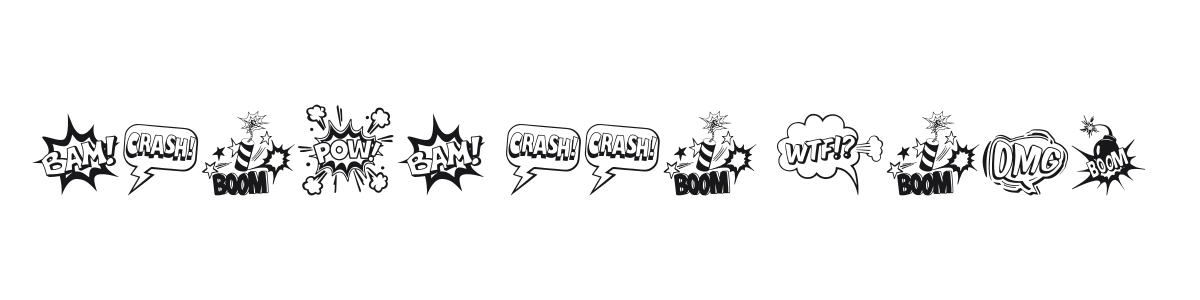
Comic Boom Elements
Comic Boom Elements is a dingbat font packed with comic book action bubbles, speech balloons, and explosion shapes filled with classic onomatopoeia like BOOM, ZAP, CRASH, and POW. Each glyph is a standalone illustration drawn in bold, high-contrast black and white with jagged pop-art energy. This is a demo version with a limited glyph set; the full collection includes 89 subjects across speech balloons, bubble numbers, and comic elements.